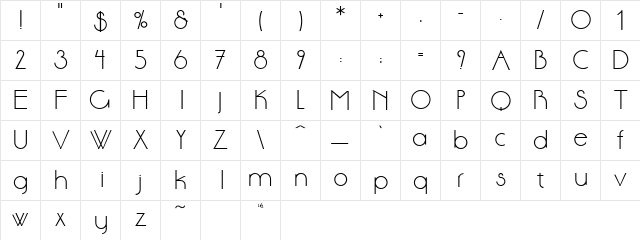
Anson Normal
Design Context for Anson Typeface
Anson offers clean, dependable letterforms without strong stylistic allegiance, making it a practical choice for designers who need flexibility.